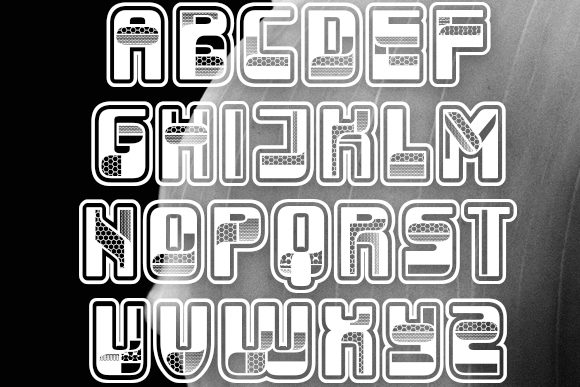
Introducing Calla Font: Elevate Your Designs with a Textured, Thick Lettered, and Sharp-Looking Display Font
Are you tired of using the same old fonts in your designs? Look no further than Calla Font, a game-changing display font that’s sure to inspire your creativity. With its unique textured, thick lettered, and sharp-looking style, Calla Font is the perfect addition to any design project. In this article, we’ll dive into the features and benefits of Calla Font, and explore the endless possibilities it offers for designers and crafters.
What is Calla Font?
Calla Font is a display font designed to make a statement. Its textured, thick lettered, and sharp-looking style gives it a bold and edgy appearance that’s sure to grab attention. Whether you’re working on a logo, brochure, or social media graphic, Calla Font is the perfect choice for adding a touch of sophistication and elegance to your design.
Key Features of Calla Font
- Textured Style: Calla Font features a unique textured style that gives it a rough, organic feel. This texture adds depth and visual interest to your designs, making them stand out from the crowd.
- Thick Lettered: The thick lettering of Calla Font makes it perfect for headlines, titles, and other applications where you want to make a bold statement.
- Sharp-Looking: The sharp lines and edges of Calla Font give it a crisp, clean appearance that’s perfect for modern designs.
Benefits of Using Calla Font
So why choose Calla Font for your designs? Here are just a few benefits of using this amazing display font:
- Adds Visual Interest: The unique textured style and thick lettering of Calla Font add visual interest to your designs, making them more engaging and attention-grabbing.
- Perfect for Headlines and Titles: The bold, sharp-looking style of Calla Font makes it perfect for headlines and titles, where you want to make a big impact.
- Versatile: Calla Font is versatile and can be used in a wide range of design applications, from logos and brochures to social media graphics and more.
Endless Possibilities with Calla Font
One of the best things about Calla Font is its endless possibilities. Here are just a few ideas to get you started:
- Logos and Branding: Use Calla Font to create a bold and memorable logo that will help your brand stand out.
- Social Media Graphics: Add a touch of sophistication and elegance to your social media graphics with Calla Font.
- Brochures and Flyers: Use Calla Font to create eye-catching headlines and titles for your brochures and flyers.
- Web Design: Add a touch of style and sophistication to your website with Calla Font.
Tips for Using Calla Font
Here are a few tips for getting the most out of Calla Font:
- Use it Sparingly: Because of its bold and attention-grabbing style, it’s best to use Calla Font sparingly. Use it for headlines and titles, and pair it with a simpler font for body text.
- Experiment with Colors: Calla Font looks great in a wide range of colors, so don’t be afraid to experiment and find the perfect color for your design.
- Pair it with Other Fonts: Calla Font pairs well with a wide range of other fonts, so feel free to get creative and try out different combinations.
In conclusion, Calla Font is a game-changing display font that’s sure to inspire your creativity and elevate your designs. With its unique textured, thick lettered, and sharp-looking style, Calla Font offers endless possibilities for designers and crafters. So why wait? Download Calla Font today and start creating stunning designs that will leave a lasting impression.